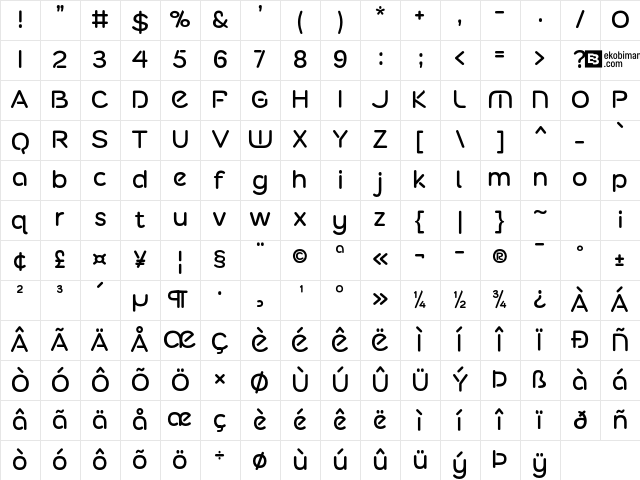
Roundex Regular
Designer: Eko Bimantara, Bion Ibrahim
Design Context for Roundex
Roundex softens its letterforms with rounded terminals, giving it an approachable, friendly quality that works well in consumer-facing and digital contexts.
Font Pairing: Pairs well with a rounded or humanist sans for body copy, maintaining the friendly tone without relying on Roundex to carry extended reading.
Pro Tip: Use Roundex for UI elements, app interfaces, and anywhere a friendly, approachable tone needs to be maintained without sacrificing clarity.